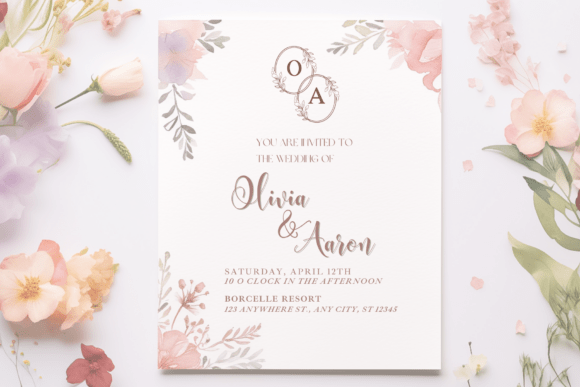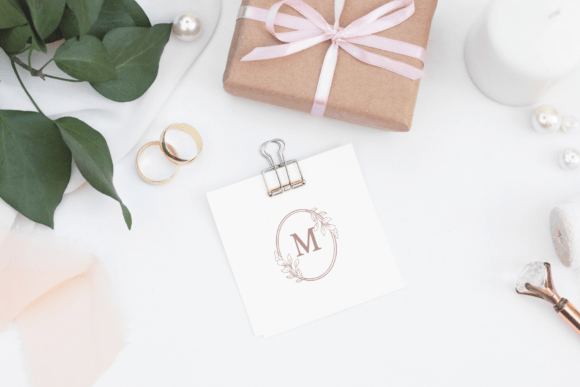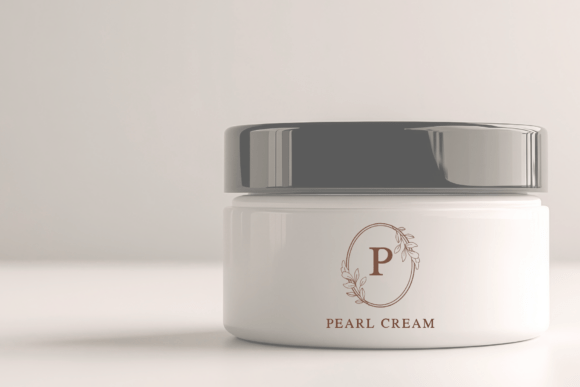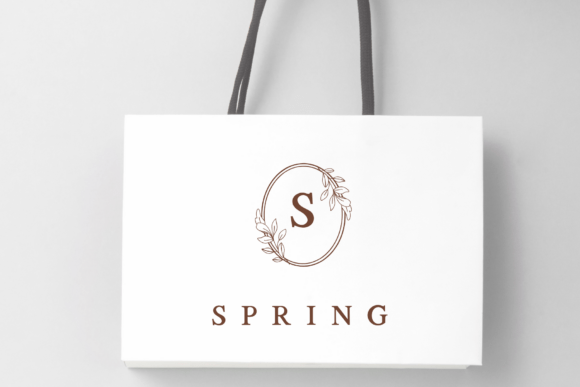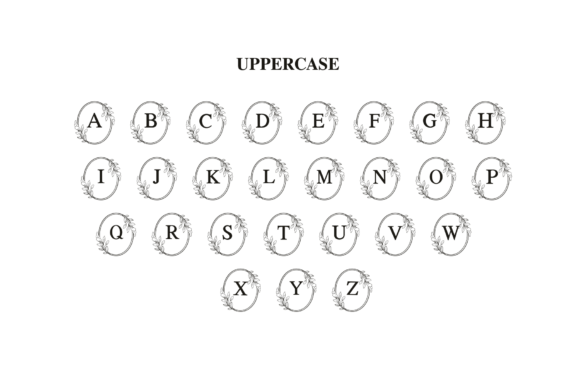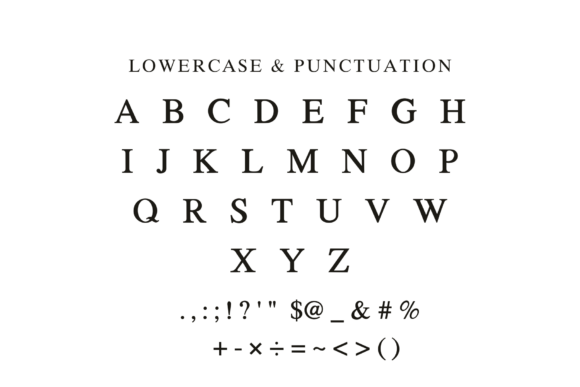
The Charm of Botanical Monogram Font
I’ll never forget the time I was working on a wedding invitation project, and my client asked for a font that would make their special day feel like a fairytale. I scoured the internet, tried countless fonts, but nothing seemed quite right. That was until I stumbled upon the Botanical Monogram Font. It’s an elegant font designed specifically for special occasions, featuring decorative letters inside a beautiful flower frame. It’s perfect for invitations, wedding cards, and any other celebration that needs a touch of charm and sophistication.
A Personal Review of Botanical Monogram Font
- ✨ Elegant and sophisticated design that’s perfect for special occasions
- ✅ Beautiful flower frame that adds a touch of whimsy and charm
- 🎉 Supports OpenType features, glyphs, and stylistic alternates for added versatility
While Botanical Monogram Font is an excellent choice for special occasions, there are a few things to keep in mind. For example, ⚠️ some of the glyphs and stylistic alternates can be a bit tricky to access, especially for beginners. Additionally, 🤔 the font may not be the best choice for body text or long-form writing, as it’s primarily designed for headings and titles.
The Designer Inspiration Behind Botanical Monogram Font
Botanical Monogram Font was designed with the intention of capturing the elegance and charm of a bygone era. The designer, inspired by the intricate illustrations of vintage botanical prints, sought to create a font that would evoke the same sense of refinement and sophistication. The result is a beautiful, elegant font that’s perfect for special occasions and celebrations.
Q: What is Botanical Monogram Font?
A: Botanical Monogram Font is an elegant font designed specifically for special occasions, featuring decorative letters inside a beautiful flower frame.